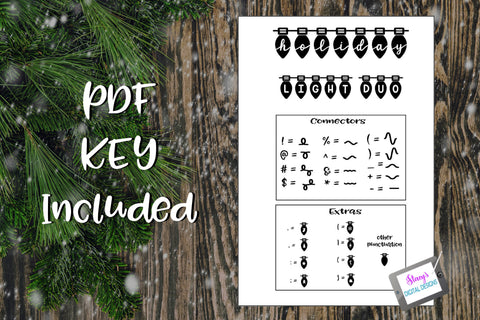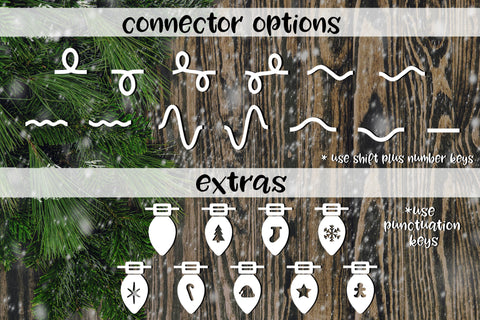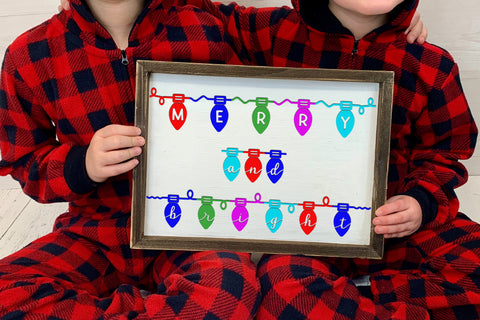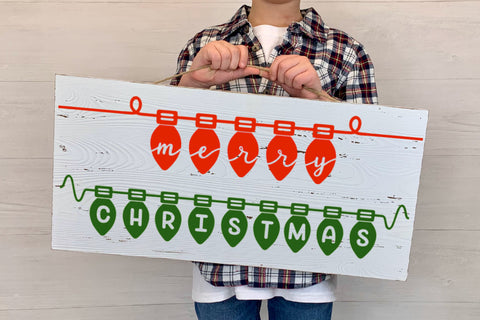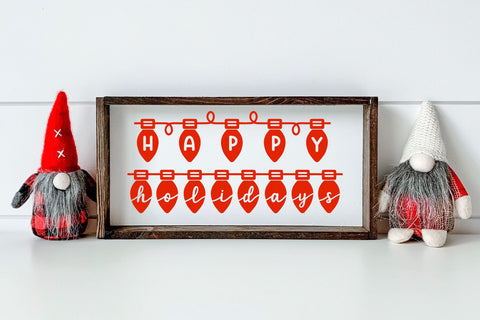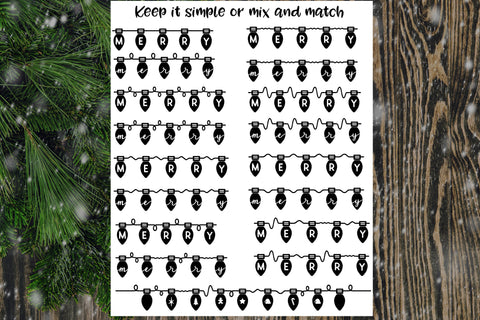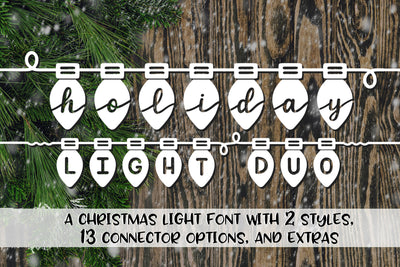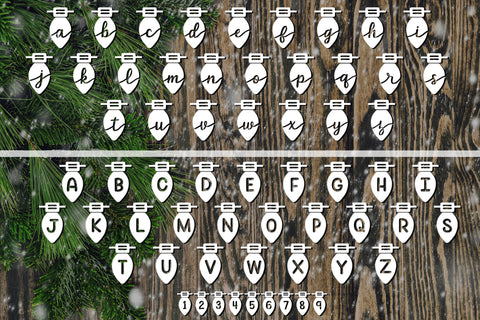
Holiday Light Duo - A Christmas Light Font with two styles
Holiday Light Duo is two fonts in one!!!! With two styles, 13 connector options, and 8 extra holiday themed lights, there are tons of possibilities!!!! This font is perfect for your Christmas and holiday projects!
Holiday Light Duo includes:
26 uppercase print light bulbs
26 lowercase script-like light bulbs
10 number light bulbs
13 wire connector options - shift + number keys
8 extra bulbs with Christmas themes - Varied punctuation keys
1 solid light bulb - (no letters, no design)
*No punctuation or accented characters are included.